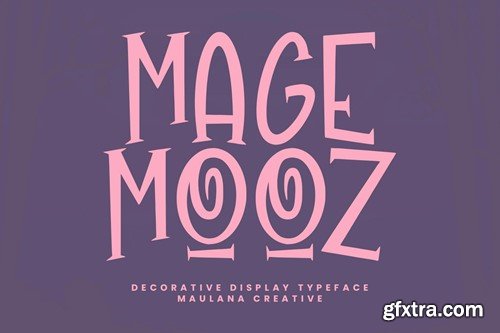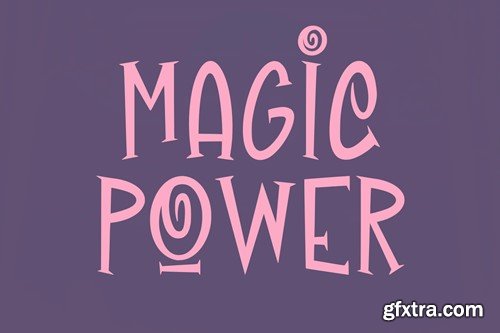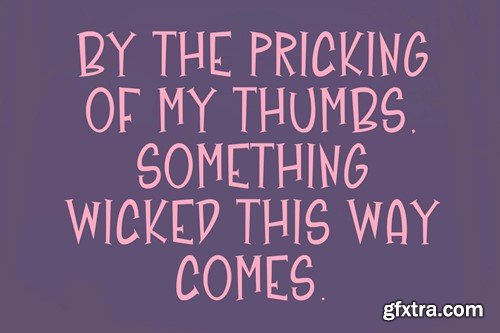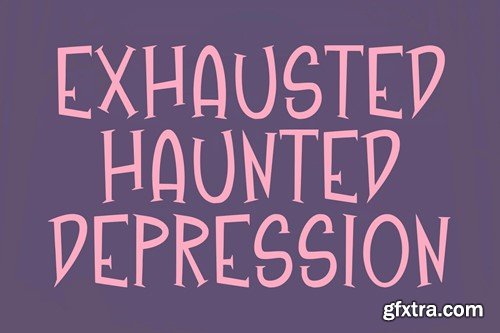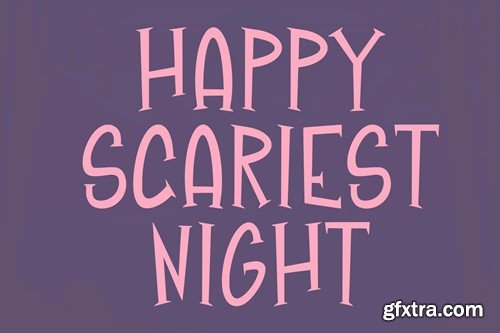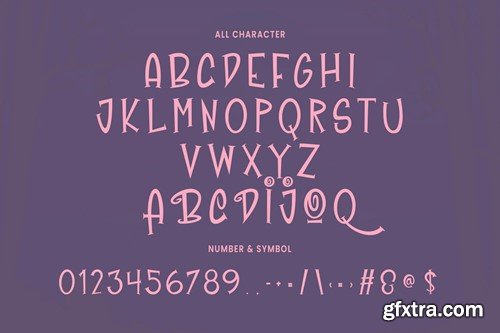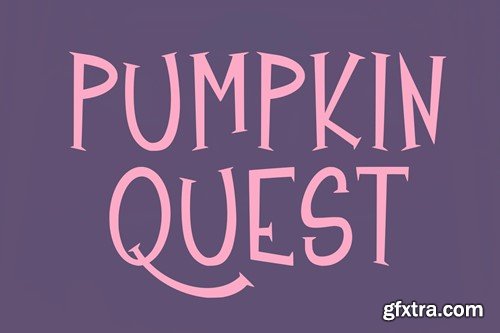
Magemooz Decorative Display Typeface
Magemooz decorative display typeface. With three weight stroke, fun character with a bit of ligatures. To give you an extra creative work. Magemooz decorative display typeface support multilingual more than 100+ language. This font is good for logo design, Social media, Movie Titles, Books Titles, a short text even a long text letter and good for your secondary text font with sans or serif. Make a stunning work with Magemooz decorative display typeface. What you get: Cheers, Maulana Creative